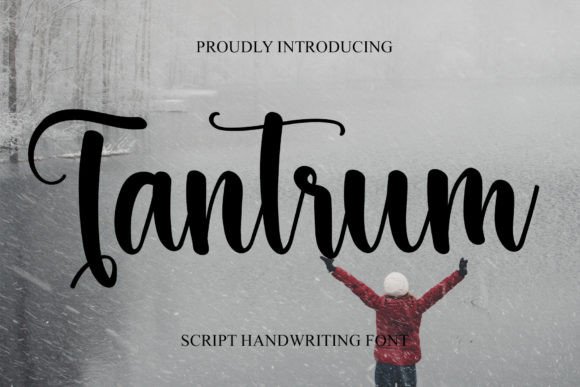
Introducing Tantrum Font - An Irresistible Handwritten Masterpiece
Step into a world of captivating calligraphy and exquisite artistry with Tantrum Font, a modern and friendly handwritten font that will leave you spellbound. Created by the talented hands of 21Design, this font is a testament to meticulous craftsmanship and intricate detailing.
With Tantrum Font, you hold the key to unlocking a treasure trove of creative possibilities. Whether you're a seasoned designer seeking to add a touch of magic to your projects or a passionate hobbyist yearning for a font that speaks to your soul, Tantrum Font is the perfect companion for your artistic endeavors.
As a script font, Tantrum Font exudes an air of grace and elegance that effortlessly elevates any design. Its carefully crafted curves and delicate strokes dance across the page, creating a visual symphony that draws the eye and captivates the heart.
Immerse yourself in the versatility of Tantrum Font, as it seamlessly adapts to a myriad of design styles and themes. From whimsical invitations and heartfelt greeting cards to eye-catching social media graphics and stunning website headers, Tantrum Font possesses the uncanny ability to transform ordinary words into extraordinary works of art.
Unleash your inner artist and let Tantrum Font guide you on a journey of creative exploration. Whether you're designing a logo that exudes sophistication or crafting a banner that radiates playful charm, Tantrum Font will effortlessly elevate your designs to new heights of brilliance.